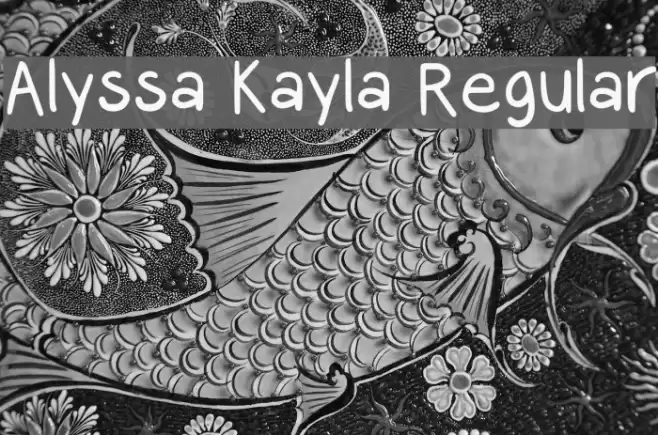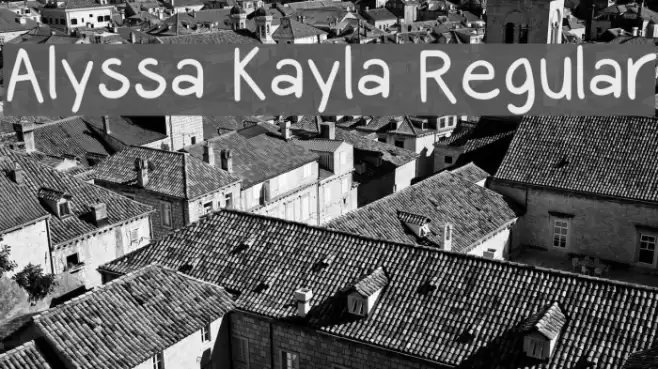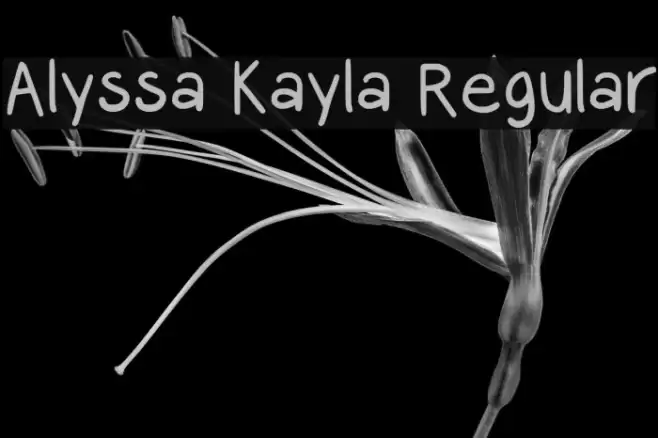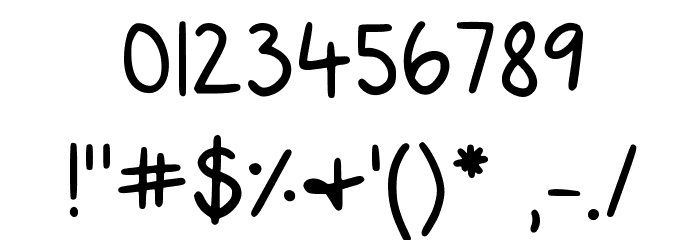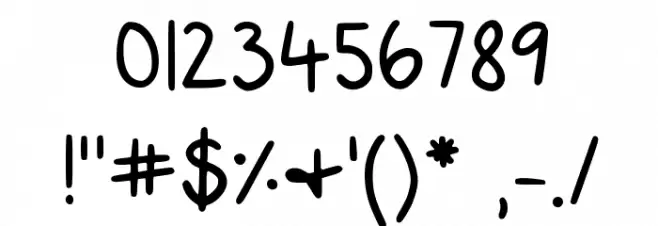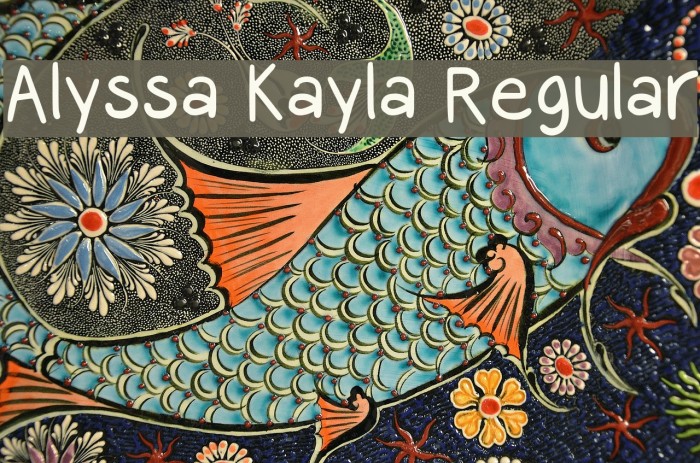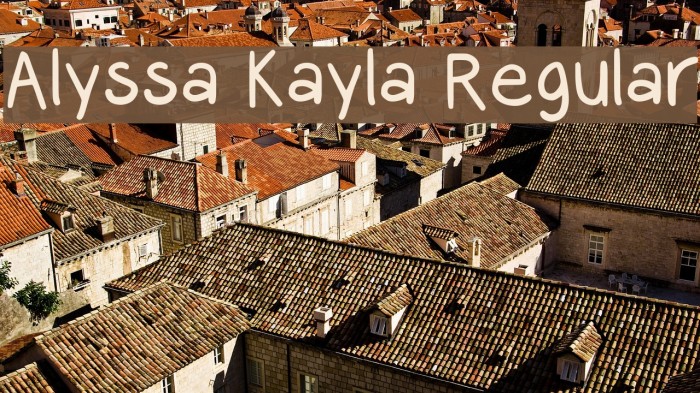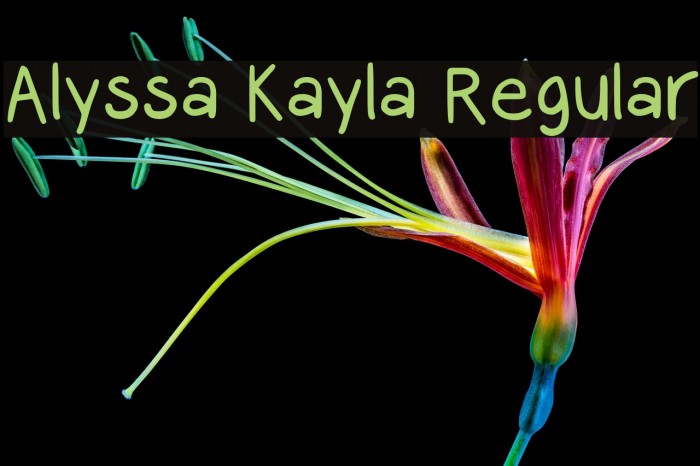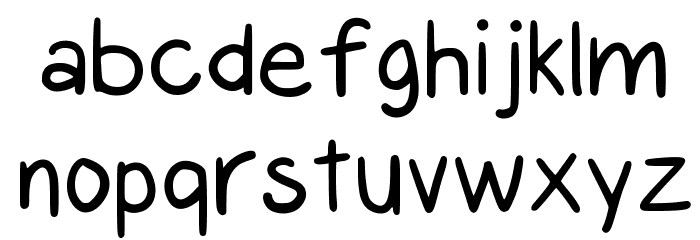
Alyssa Kayla Regular Font
Alyssa Kayla Regular Description
This font features a playful and casual handwritten style, characterized by its rounded and slightly irregular letterforms. The uppercase and lowercase letters maintain a consistent flow, with a friendly and approachable appearance. The numerals and special characters complement the alphabet with similar rounded edges and informal styling. This font exudes a sense of warmth and personality, making it ideal for projects that require a personal touch.
A playful, handwritten font with rounded, casual letterforms from Handwritten fonts.
- Proposed Projects: Ideal for greeting cards, children's books, personal blogs, and informal branding.
- Overall Style: Casual
- Use Case: Headlines, Informal text, Personal projects